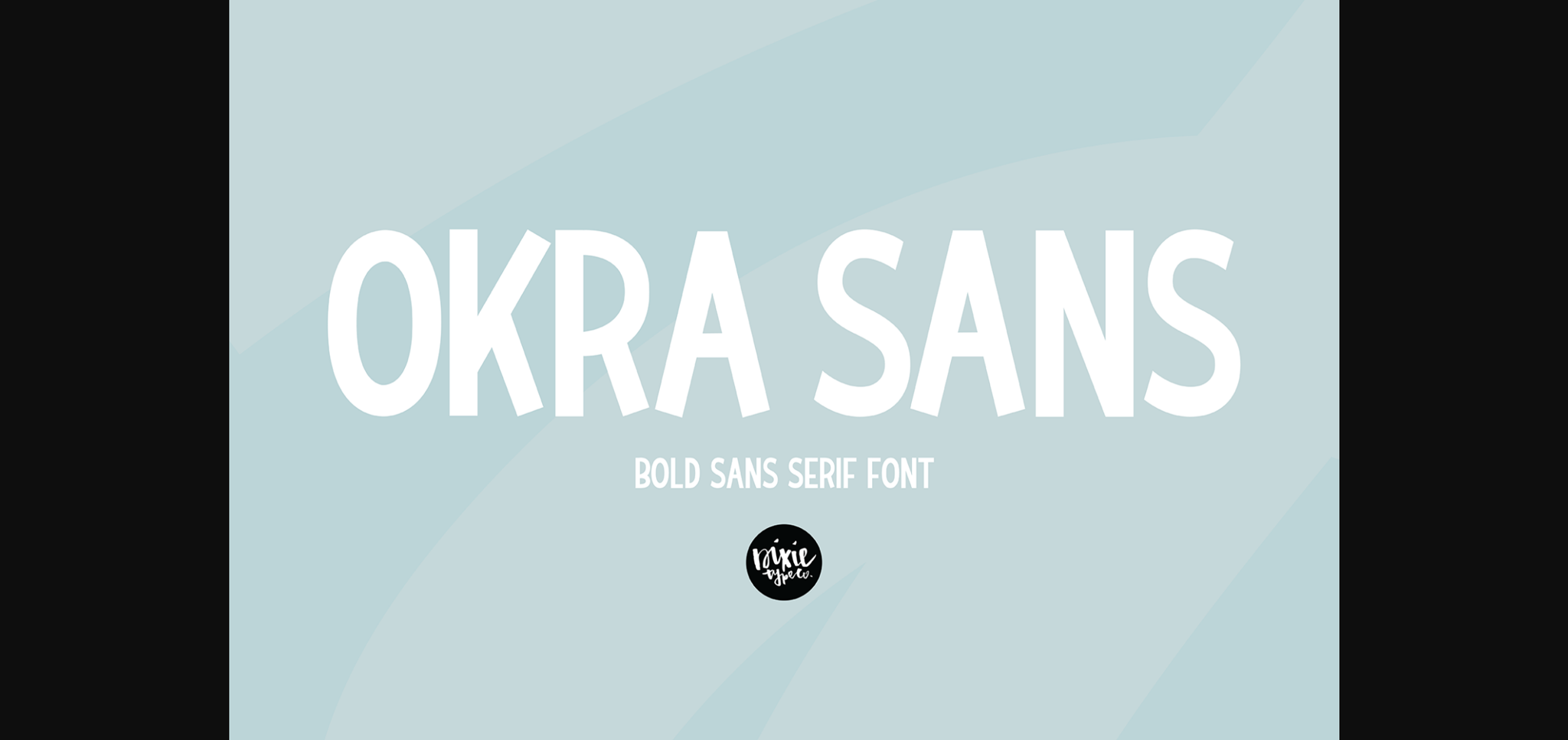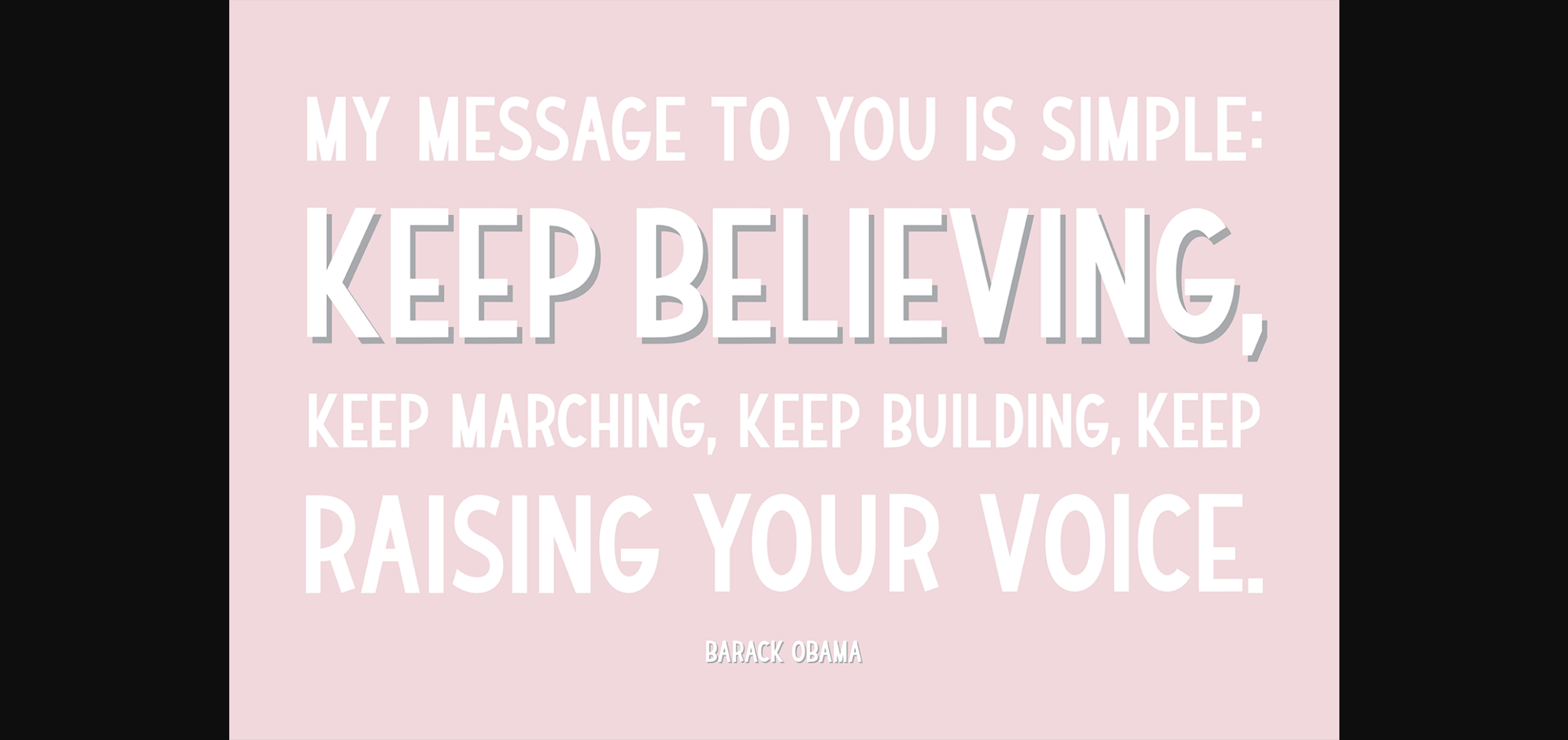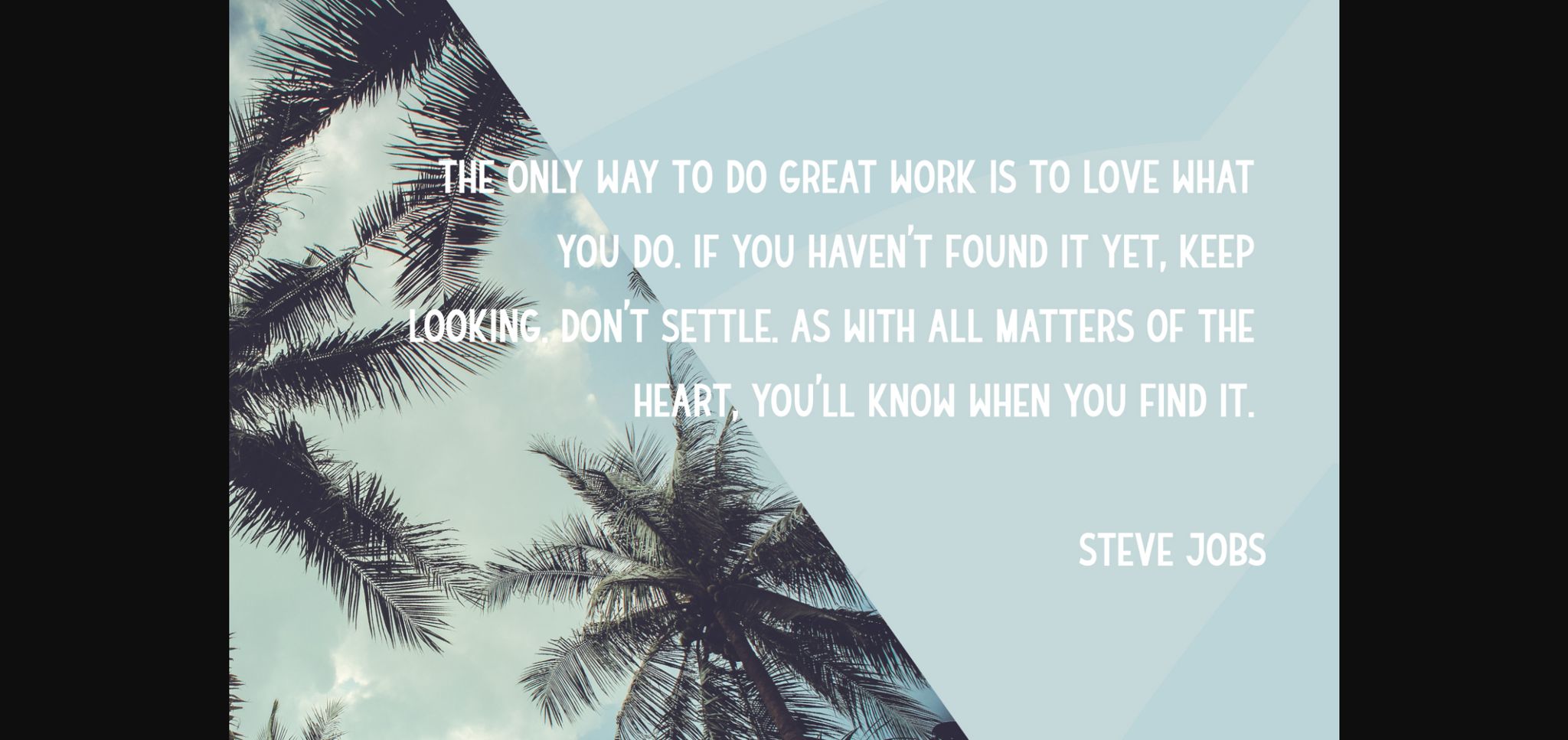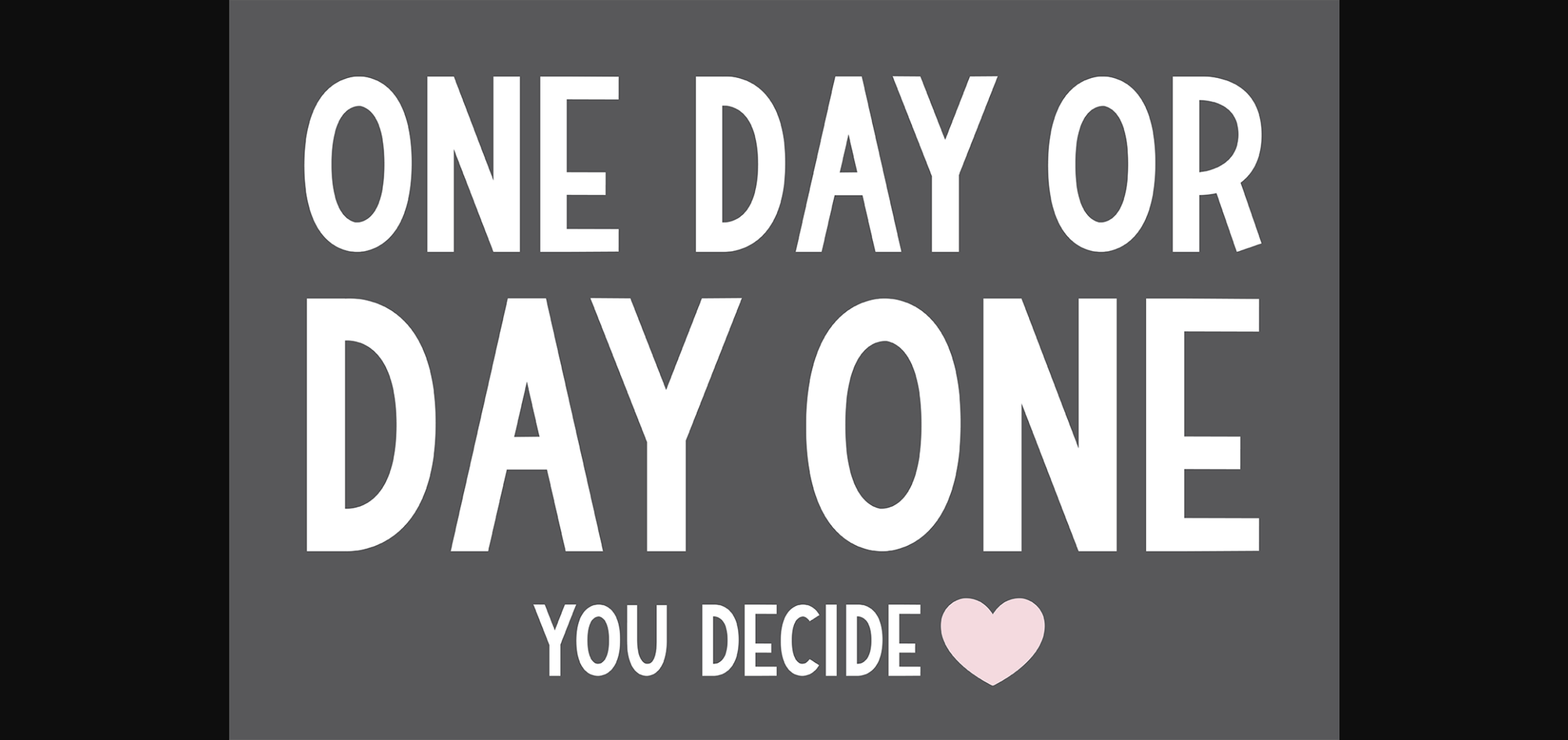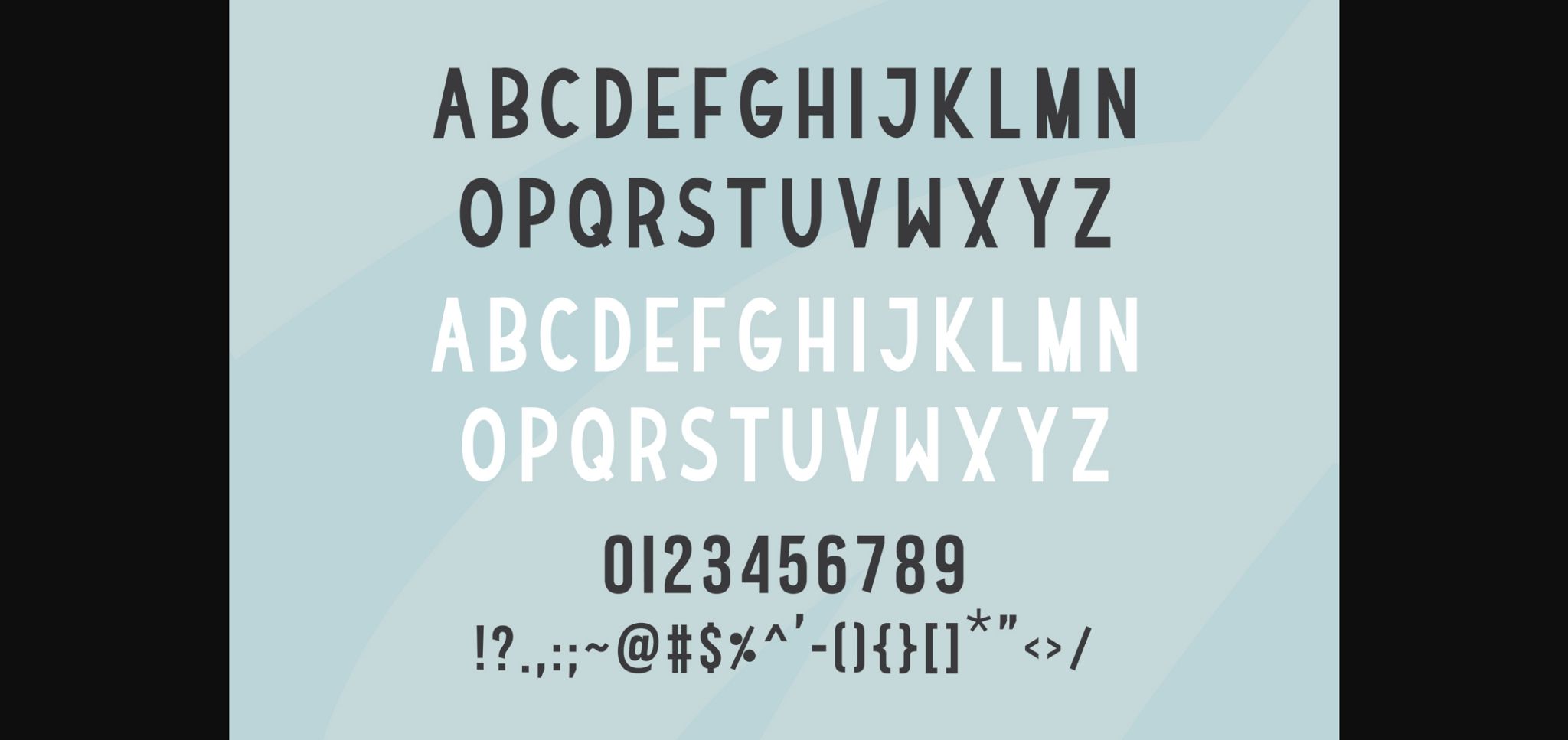
Okra Sans Font
About Okra Sans Font
Okra Sans is a simple and bold sans serif font. It features a smooth and neat style, adding a unique touch to each of your creations!